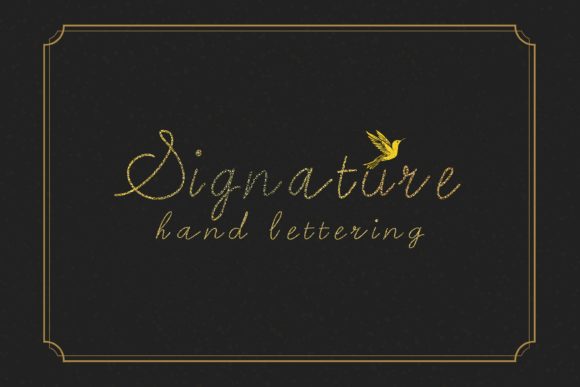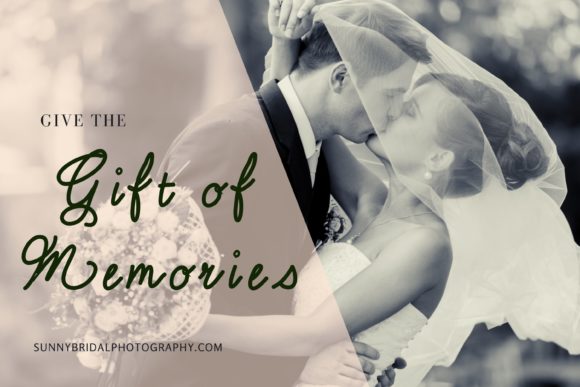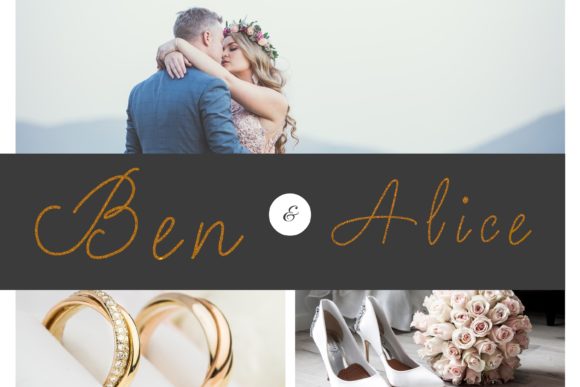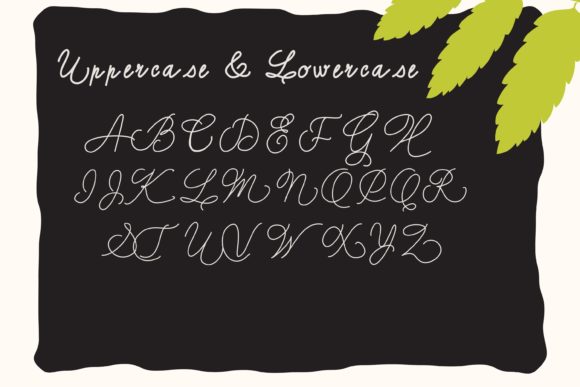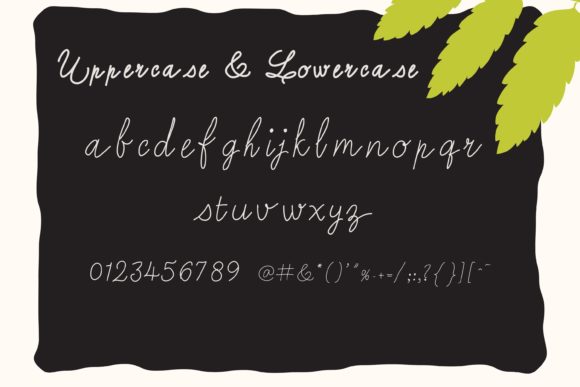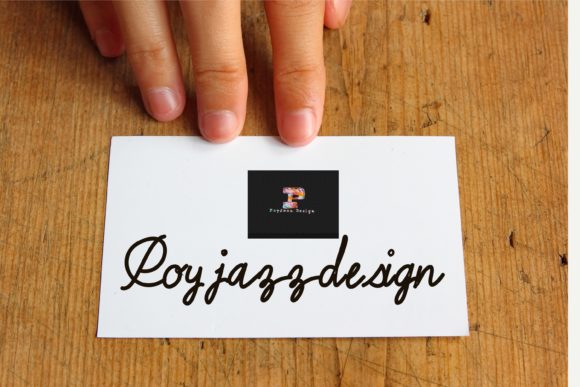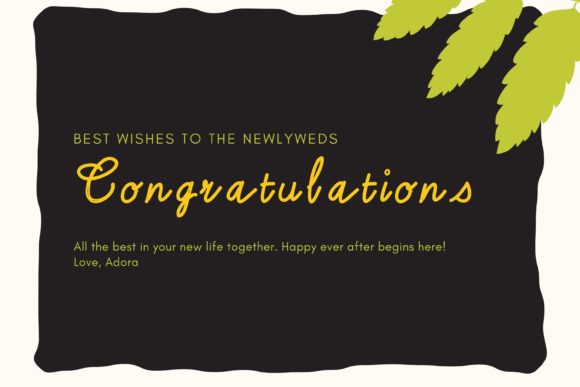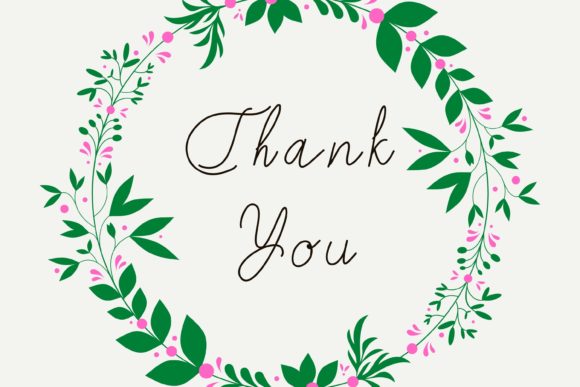
Signature is a beautiful, flowing and sweet handwritten font. This thin lettered and adaptable font will make each of your creations look absolutely fabulous. The only limit is your imagination.